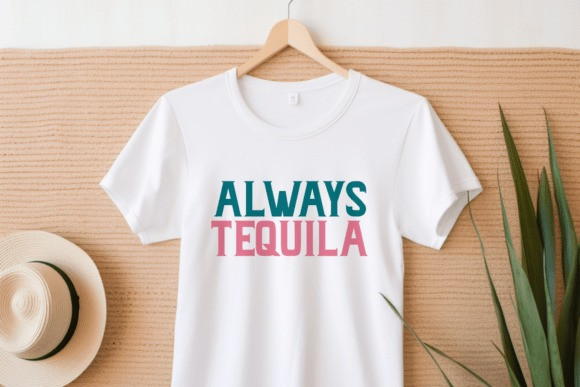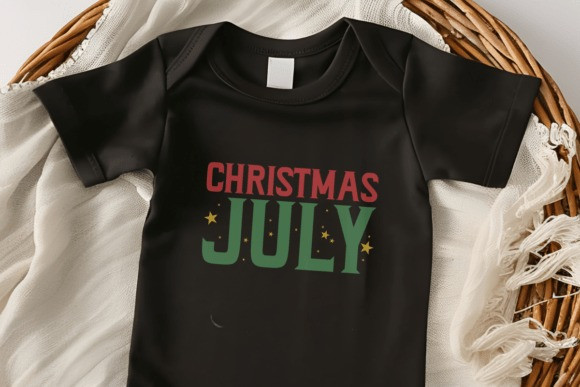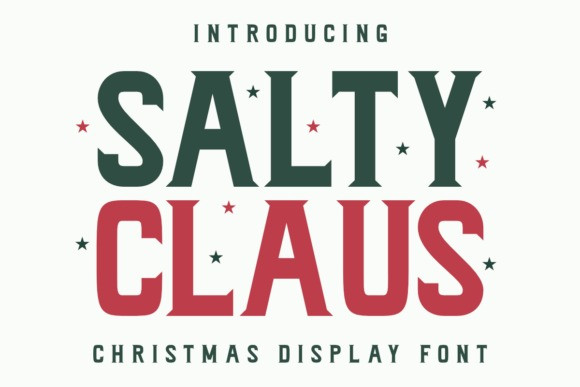
Salty Claus Font
Salty Claus Font is a bold and festive Christmas display font that brings jolly vibes and a touch of playful sarcasm to your holiday designs. Inspired by retro slab serif lettering with a modern twist, this font is perfect for holiday-themed projects and seasonal products.
Whether you’re creating funny Christmas quotes, sublimation t-shirts, Cricut crafts, laser cut, or festive mugs for Etsy, Salty Claus is ready to deliver charm and holiday cheer with a little attitude. PUA encoded and compatible with most cutting machines.